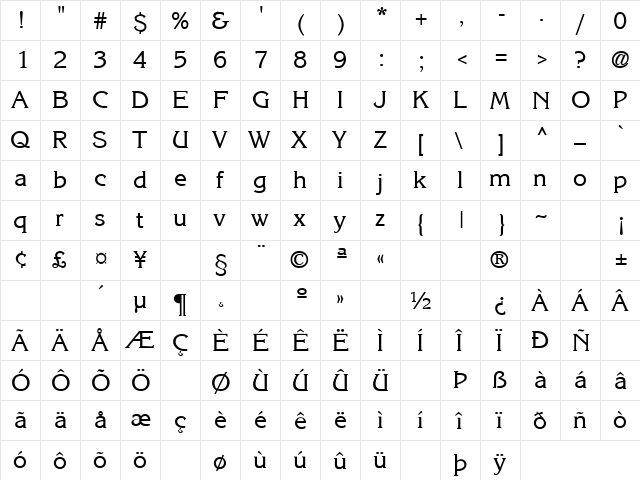
Home Tonight 3 Regular
Home Tonight 3 takes a measured approach to typography — its balanced proportions and neutral character make it a reliable workhorse for both digital and print work.